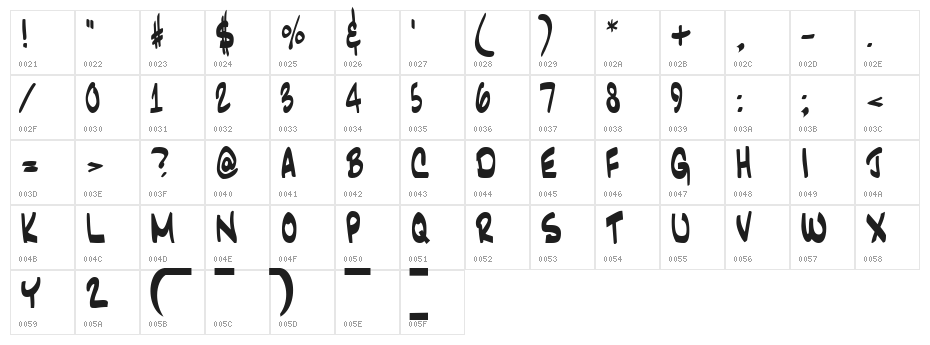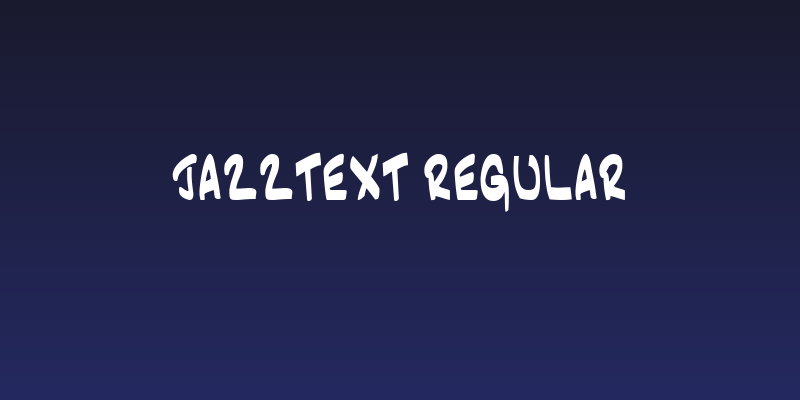
JazzText Regular Font
JazzText Regular Description
This font exhibits a lively and dynamic style, characterized by its bold, playful curves and slightly irregular shapes. The letters have a hand-drawn appearance, with varying stroke thickness that adds to its energetic and informal vibe. The uppercase and lowercase letters maintain a consistent style, with rounded edges and a slightly slanted orientation, giving it a sense of movement. The numbers and special characters follow the same design principles, ensuring a cohesive look across all characters. This font is ideal for projects that require a fun and engaging aesthetic.
| Overall Style | Playful, Energetic, Hand-drawn |
| Use Case | Headlines, Posters, Branding |
| Proposed Projects | Ideal for music event posters, children's book covers, playful branding, and creative social media graphics. |